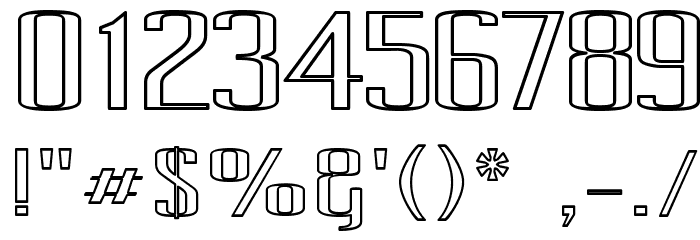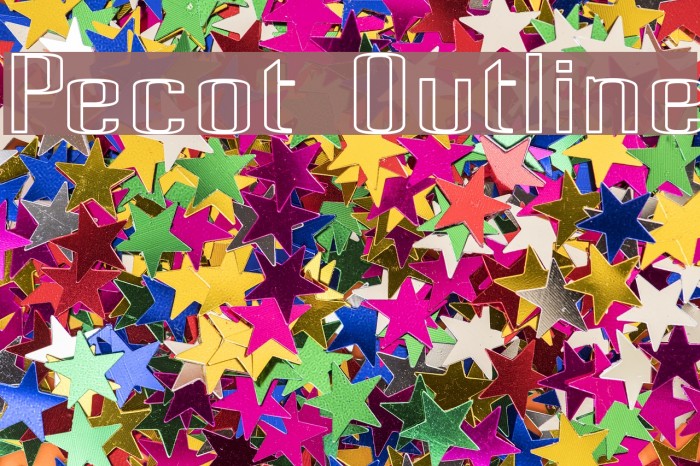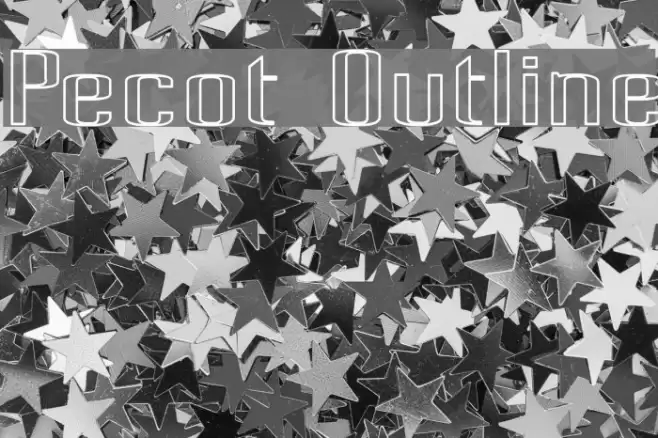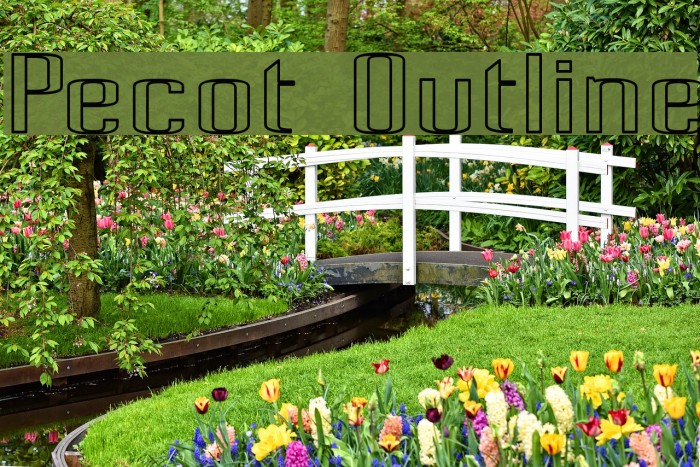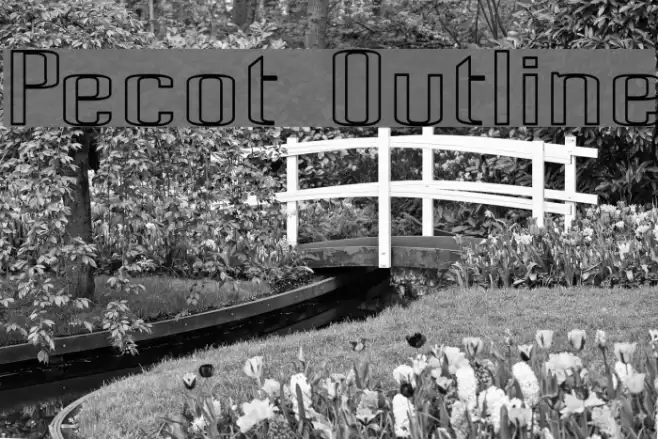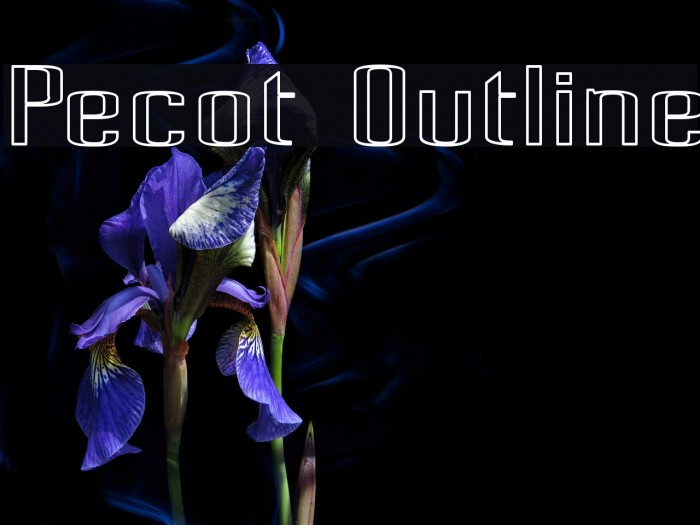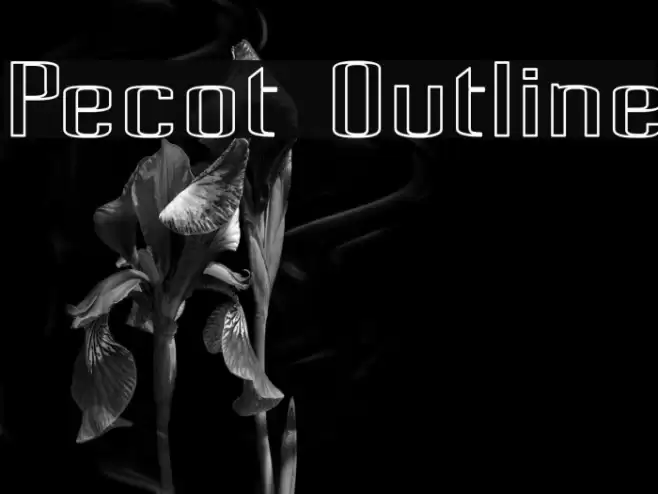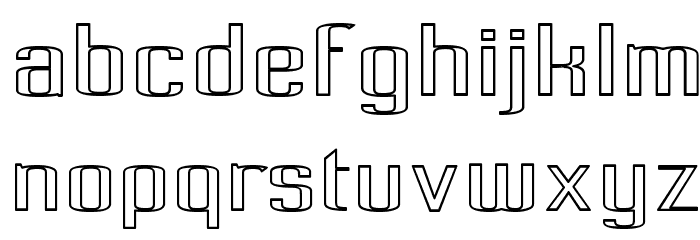
Pecot Outline Font
Pecot Outline Description
This font features a distinct outline style, giving it a modern and edgy appearance. The characters are constructed with clean, geometric lines that form the outer edges, creating a hollow effect. This design choice emphasizes the shape and structure of each letter, making it highly legible and visually striking. The uppercase and lowercase letters maintain a consistent style, with a uniform height and width that contributes to a balanced look. Numbers and special characters are crafted with the same attention to detail, ensuring a cohesive appearance across all elements. The font's open design makes it suitable for various creative applications, where a bold and contemporary statement is desired.